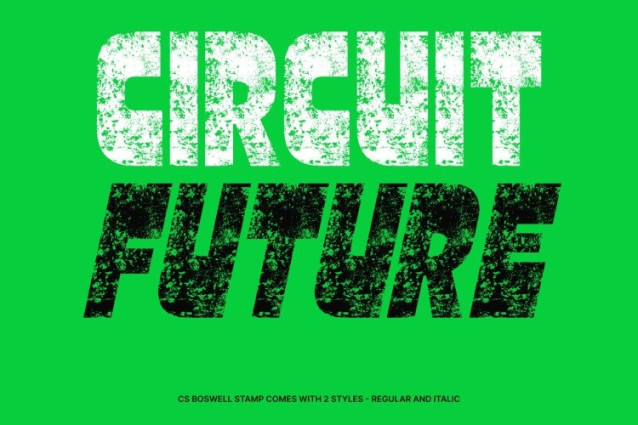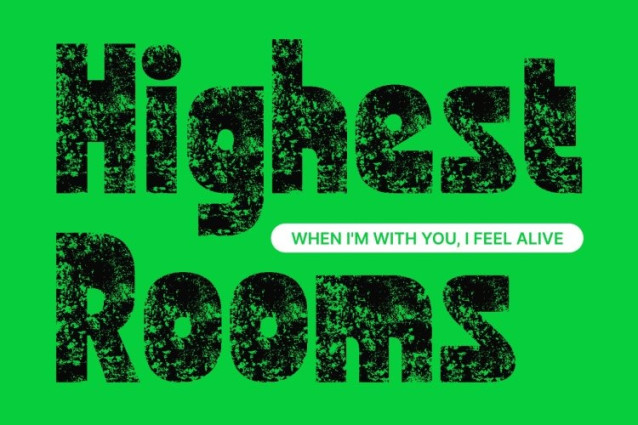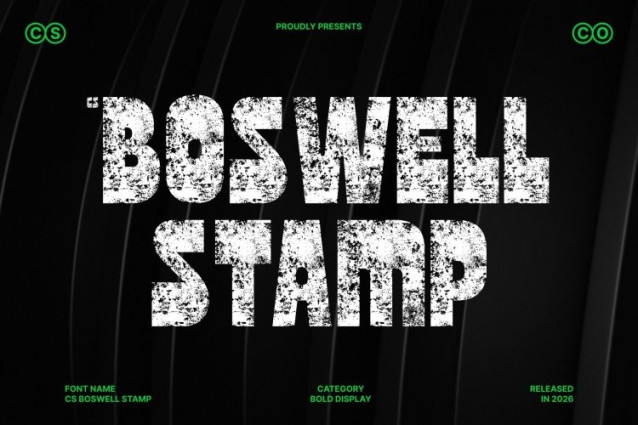
CS Boswell Stamp Font
CS Boswell Stamp Font This is a bold sans serif font that blends modern structure with playful character, enhanced by a distinctive stamp effect. Its thick strokes and solid forms create a strong visual foundation, while the stamped texture introduces a slightly worn, handcrafted feel—adding warmth, authenticity, and a touch of retro charm to its contemporary design.
Strong Presence with Expressive Bold Strokes
The heavy weight of gives it an unmistakable presence. Its bold strokes ensure high visibility and impact, making it perfect for headlines, titles, and statement typography. The stamp effect softens the boldness just enough, creating depth and visual interest without sacrificing clarity or strength.
Friendly Appearance with Rounded Corners
Rounded corners replace sharp edges, giving the font a welcoming and approachable personality. This friendliness is enhanced by the stamped finish, which adds subtle imperfections that make the font feel more human, relaxed, and organic ideal for designs that want to feel bold yet inviting.
Playful, Funky Personality with a Vintage Edge
Unique curves and unconventional letterforms give this font its funky, playful character. Combined with the textured stamp effect, these details create a lively, expressive look that feels creative and full of energy. Perfect for branding, posters, packaging, merchandise, and fun promotional designs, this font delivers bold confidence with a nostalgic, artistic twist.